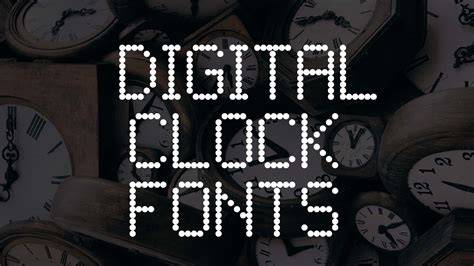
A Guide To Time Fonts In 2023
What are Time Fonts?
In the year 2023, time fonts have become an essential part of our daily lives. Time fonts are a type of font that is designed to display the time in a visual form. This can be helpful for those who need to keep track of their time more accurately or who want to keep up with the latest trends. Time fonts typically feature a clock-like design where the time is represented by the font symbol and the minutes and hours are indicated with arrows. They are often used in digital clocks, watches, and other devices.
What Types of Time Fonts Are There?
There are a variety of different types of time fonts available. The most popular ones are digital time fonts, which are the most common type of time font. These time fonts feature a digital clock design and typically have the time indicated with arrows. Other types of time fonts include analog time fonts which feature a more traditional clock design, and even fantasy time fonts which feature a more whimsical design.
What Are the Benefits of Using Time Fonts?
Time fonts offer a variety of benefits for those who use them. Firstly, they can help to improve accuracy when it comes to keeping track of time. This is especially useful for those who work in the fields of technology, finance, and medicine. Secondly, time fonts can be used to create a more cohesive aesthetic in various types of designs. Finally, they can be used to add a touch of personality to a design, and they can also help to make a design stand out from the crowd.
Time fonts have become an essential part of modern design and can be used to create a more cohesive aesthetic in a variety of projects. They are available in a variety of different types and can be found in both free and subscription-based services. With their help, designers can easily add a touch of personality to their projects and improve the accuracy of their time tracking.